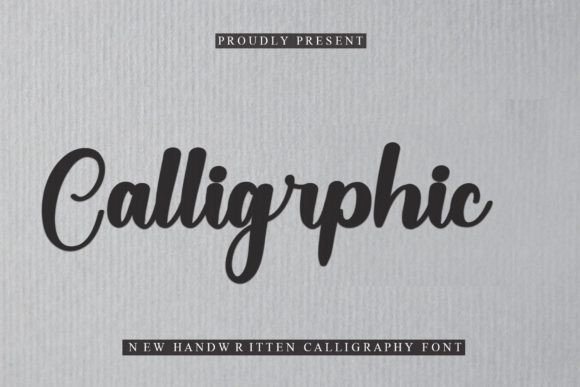
Unleash your inner artist with Calligrphic, an enchanting handwritten font that will captivate your audience and leave them breathless. This versatile script typeface is a masterpiece crafted by FreshTypeINK, the masters of typography.
With its flowing strokes, delicate curves, and timeless elegance, Calligrphic is like a dance on paper. Each letter is a work of art, effortlessly conveying emotion and personality. From heartfelt love letters to captivating business memos, Calligrphic's romantic charm will leave a lasting impression.
Step into a world of endless creative possibilities with Calligrphic. Whether you're designing wedding invitations, creating captivating social media posts, or adding a touch of sophistication to your branding, this font will transform your words into visual poetry. Its wide range of applications is a testament to its versatility, making it a must-have in any designer's toolbox.
Capture the hearts of your readers with Calligrphic, the font that speaks louder than words. Its elegant curves and captivating style will make your messages impossible to ignore. Let your creativity flow freely as you explore the endless possibilities that Calligrphic has to offer.
Don't settle for ordinary fonts – embrace the magic of Calligrphic today and embark on a creative journey that will leave you spellbound.